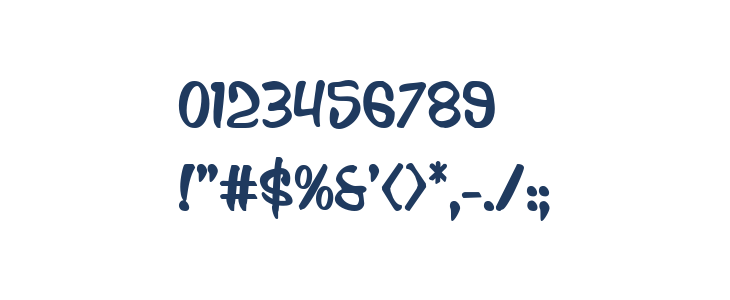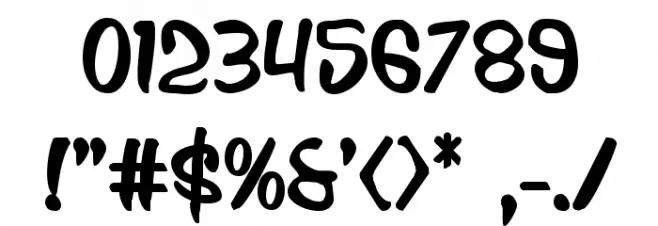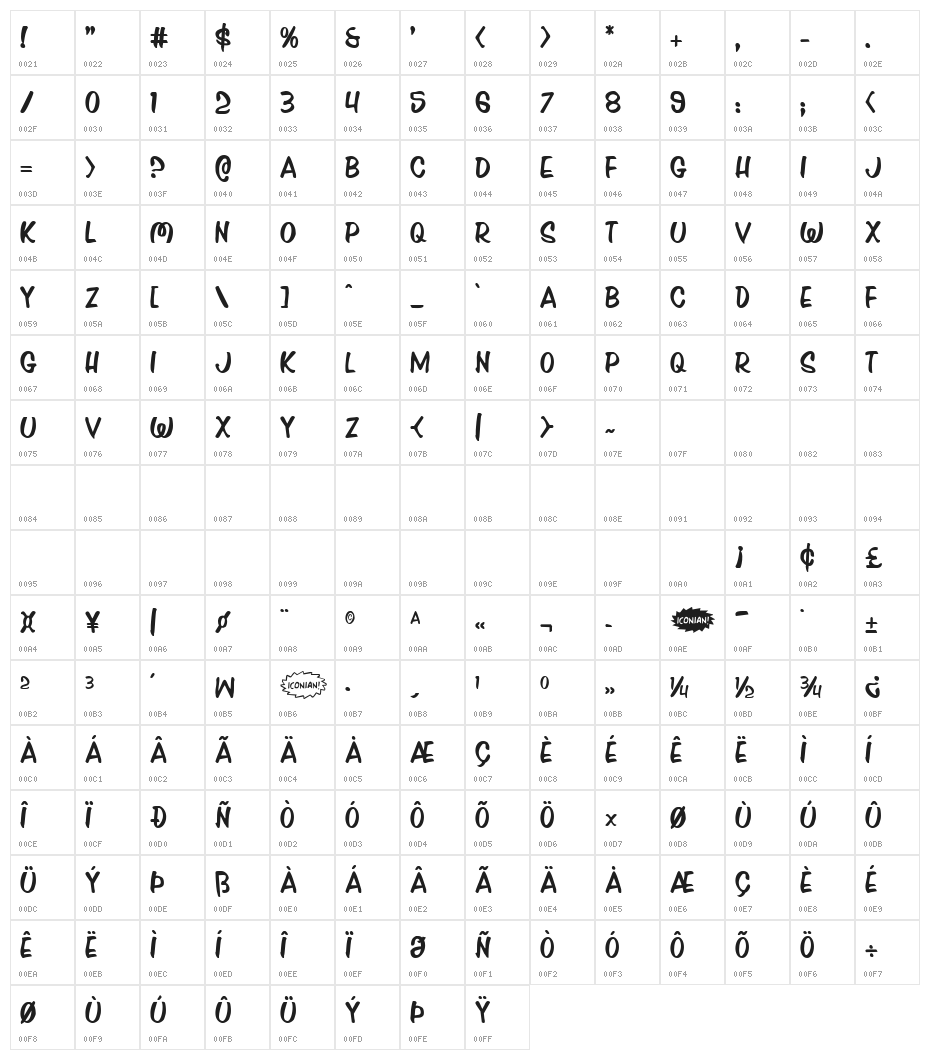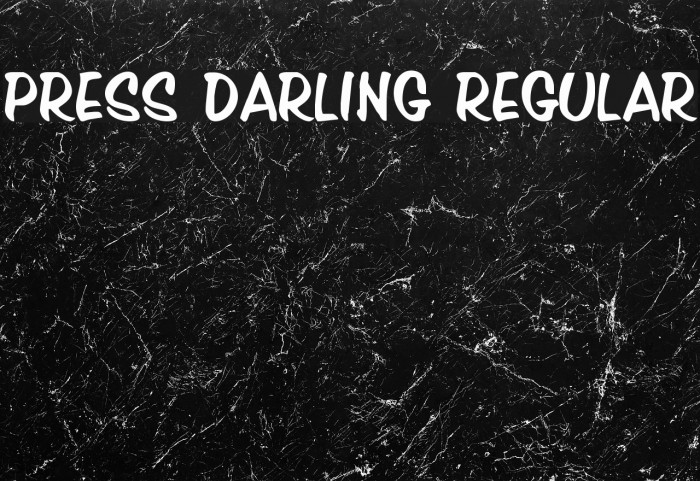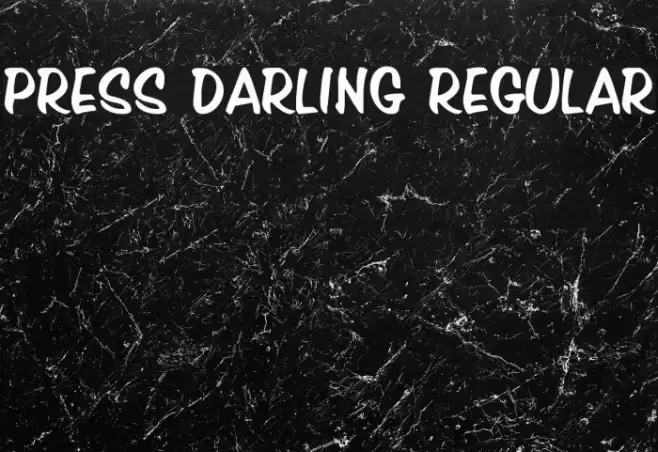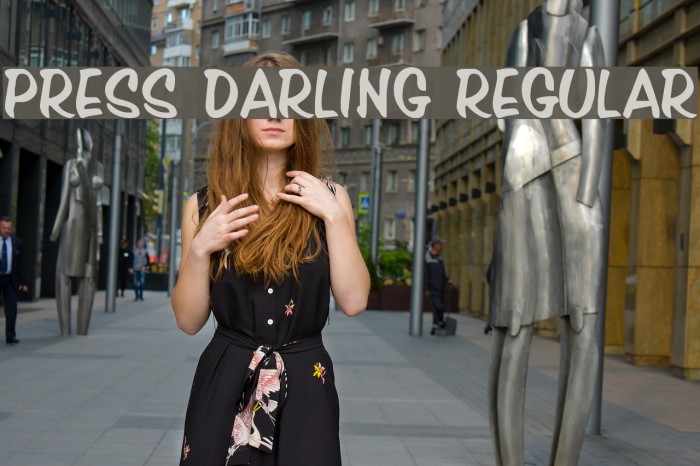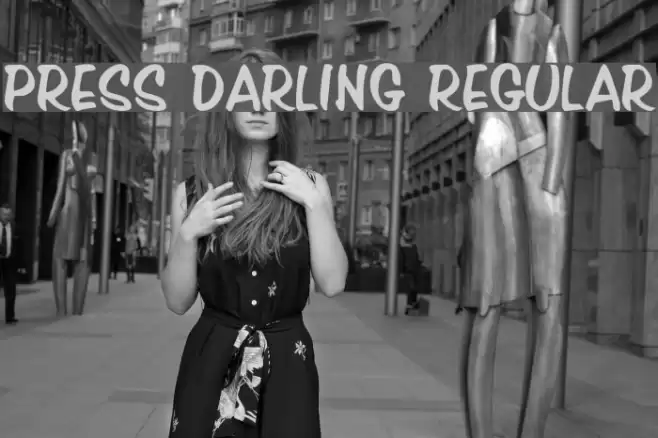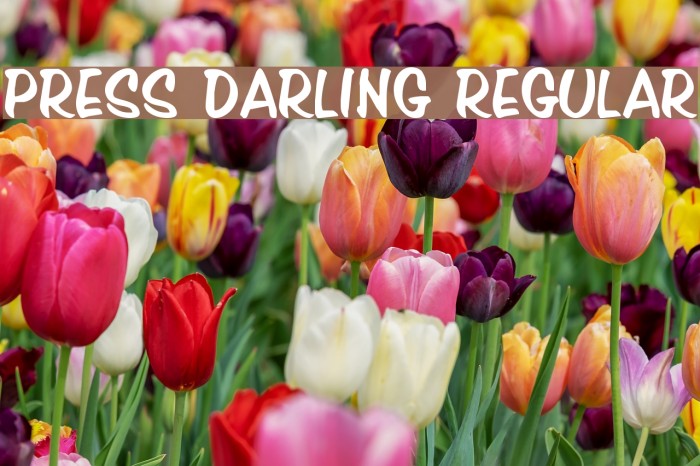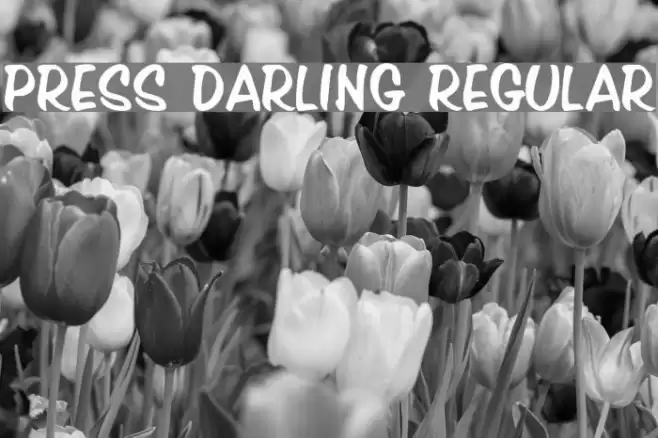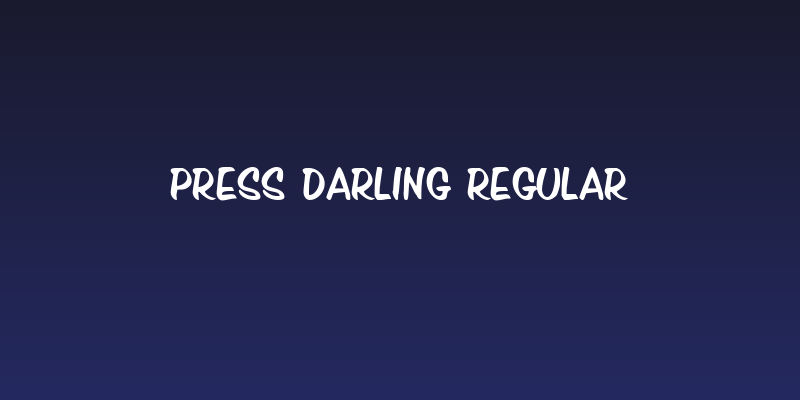
Press Darling Regular Font
Press Darling Regular Description
This font features a playful and bold style with a handwritten appearance. The characters are slightly slanted, giving a dynamic and energetic feel. The strokes are thick and consistent, providing a strong visual impact. The letters have a casual and friendly vibe, making them suitable for informal and creative projects. The numbers and special characters maintain the same lively style, ensuring uniformity across all glyphs. This font is ideal for projects that require a touch of personality and flair.
| Overall Style | Playful, Casual |
| Use Case | Headlines, Posters, Branding |
| Proposed Projects | Ideal for children's books, greeting cards, posters, and branding that requires a fun and informal touch. |